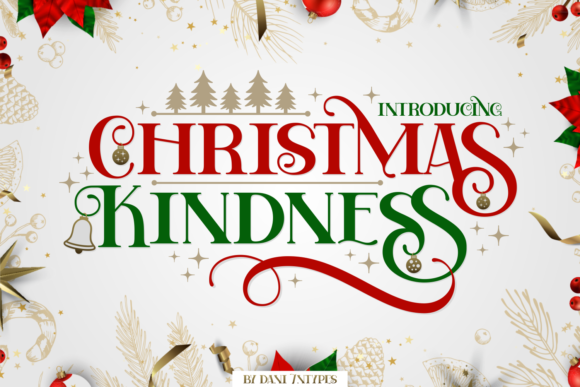
Introducing Christmas Kindness Font, the ultimate choice for all your banner title needs! Created by the talented Dani from 7NTypes, this display-type font is here to add that extra touch of holiday magic to your designs.
With its elegant and festive charm, Christmas Kindness Font is the perfect companion for any project that requires a captivating and eye-catching appeal. Whether you're designing seasonal banners, greeting cards, or even digital invitations, this font will instantly elevate your creations and make them stand out from the crowd.
One of the most remarkable features of Christmas Kindness Font is its ability to evoke emotions and capture the essence of the holiday season. Its graceful curves and stylish letterforms bring a sense of warmth and joy, instantly transporting your audience into a world of holiday cheer.
But this font is not just about aesthetics – it's also incredibly versatile when it comes to usability. Its clear and legible characters ensure that your message comes across loud and clear, even from a distance. No more struggling to read tiny fonts on your banners or signs – Christmas Kindness Font ensures that your message is seen and understood by all.
When you download Christmas Kindness Font, you're not just getting a font – you're receiving a bundle of creative possibilities. Its extensive character set includes uppercase and lowercase letters, numerals, punctuation marks, and special characters, allowing you to fully customize and personalize your designs. Let your imagination run wild and create stunning visuals that leave a lasting impression.